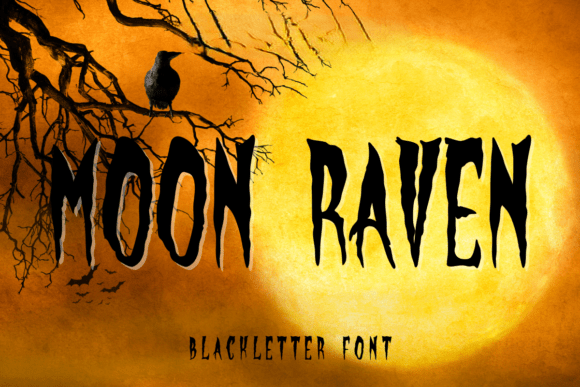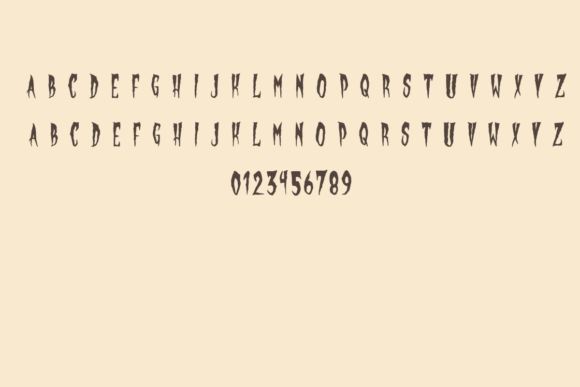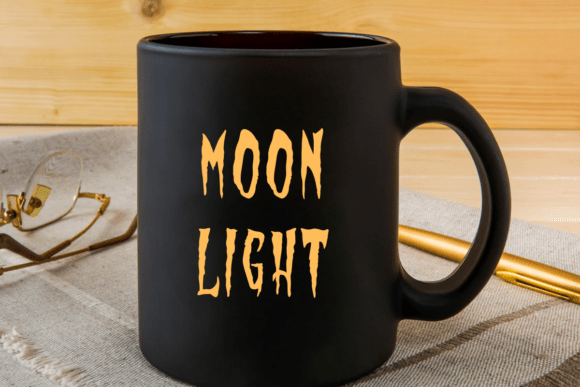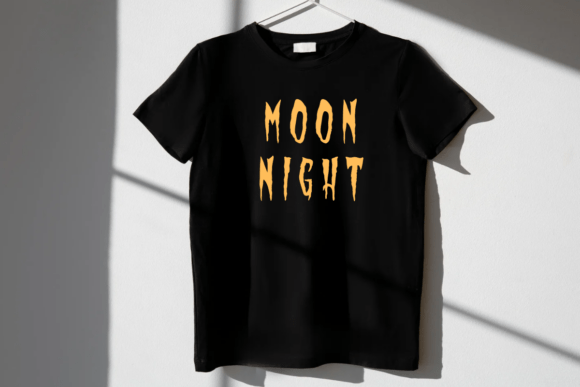
Moon Raven Font
About the Moon Raven Font
Welcome to the world of Moon Raven Font, a typeface that will inspire your next great project. Step into the shadows with
Moon Raven
, a gothic-inspired blackletter font that exudes mystery and menace. With jagged, elongated strokes and an eerie silhouette, this typeface is perfect for horror-themed designs, Halloween posters, dark fantasy book covers, or occult branding. The distressed texture and medieval letterform styling give it a hand-carved, haunting presence that commands attention against any moonlit backdrop.
Moon Raven’s aggressive character makes it ideal for headlines, short impactful text, and branding projects requiring a strong, dark aesthetic. It excels in posters, logos, and packaging for horror, fantasy, or occult-themed products. However, its low x-height and intricate detail render it unsuitable for body text or UI elements where legibility is paramount. Extended use will strain readability.
Consider pairing Moon Raven with a clean sans-serif like Open Sans for contrast, or a classic serif such as Garamond for a more refined, vintage feel. For a more modern edge, a geometric sans-serif like Futura could work well. Avoid pairing it with other highly decorative fonts, as this will create visual clutter and reduce the impact of Moon Raven’s unique features.
The font’s overall personality is bold, mysterious, and rebellious, best suited for brands conveying power, darkness, or a sense of the unconventional.
Moon Raven Font Usage Examples
Moon Raven Font Example